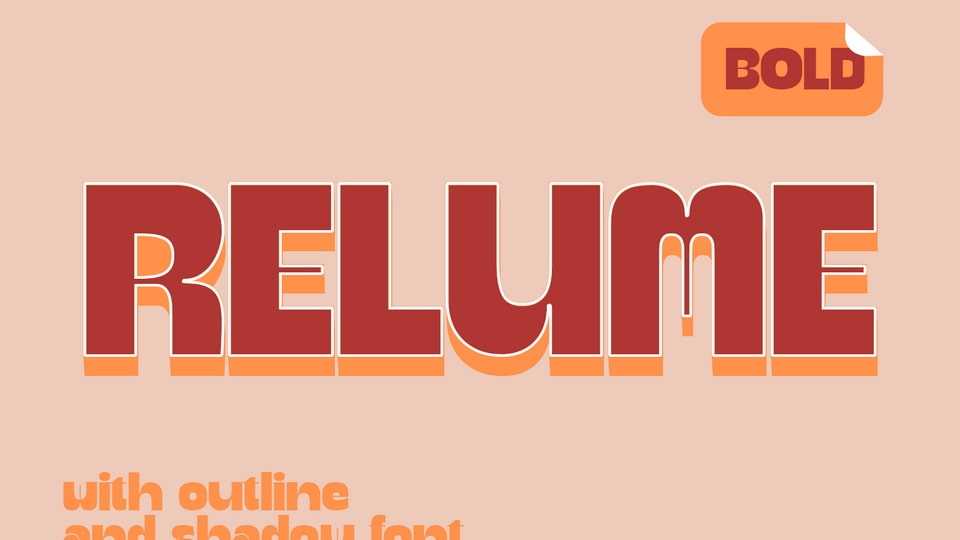
Download Relume font, a display typeface, boasting a bold retro variant alongside intricate outline and striking shadow elements, lends itself masterfully to a plethora of design applications.
Designer: Figstype